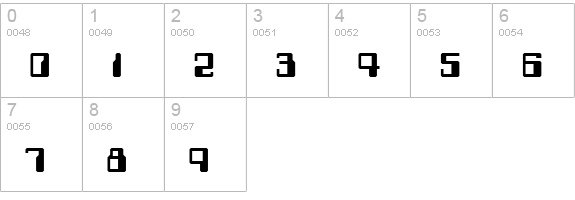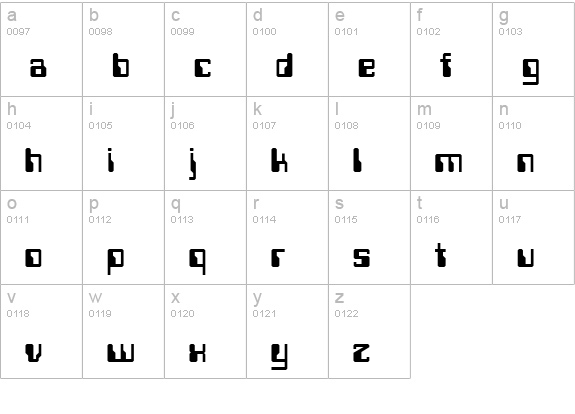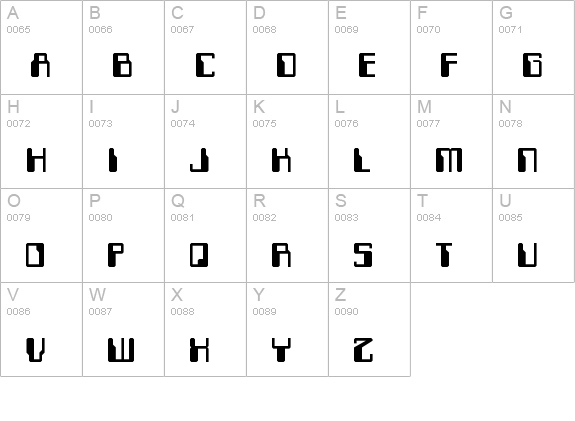
Harddisc Font Details
Harddisc font is a sleek and modern typeface designed for a wide range of design projects. With its sharp edges and bold letterforms, this font exudes a sense of strength and power. Whether you're creating a striking headline or designing a logo that demands attention, Harddisc font is sure to make a statement. What sets Harddisc font apart is not just its stylish design, but also the fact that it is completely free to use. That's right, you can download this versatile font for free at FontsMarket.com. So go ahead and elevate your designs with the striking visuals of Harddisc font without any cost.